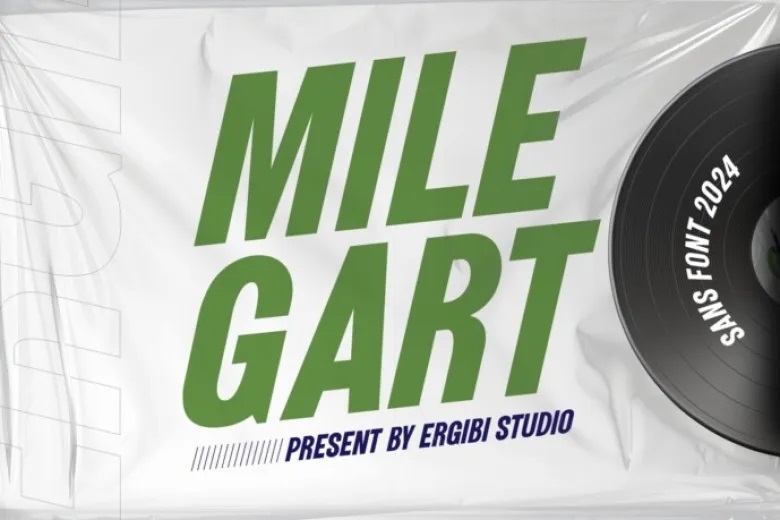
Milegart Font
Milegart font represents a vivid and unchangeable style, which has been incorporated into the letters’ stoke and certain elements of modernity. This is very nice balance between either sharp and angular lines and curves. The more fonts are in the collection, the more each font in the collection can exist and function to assert a certain complex and powerful energy all on its own.
Milegart Sans Serif Font